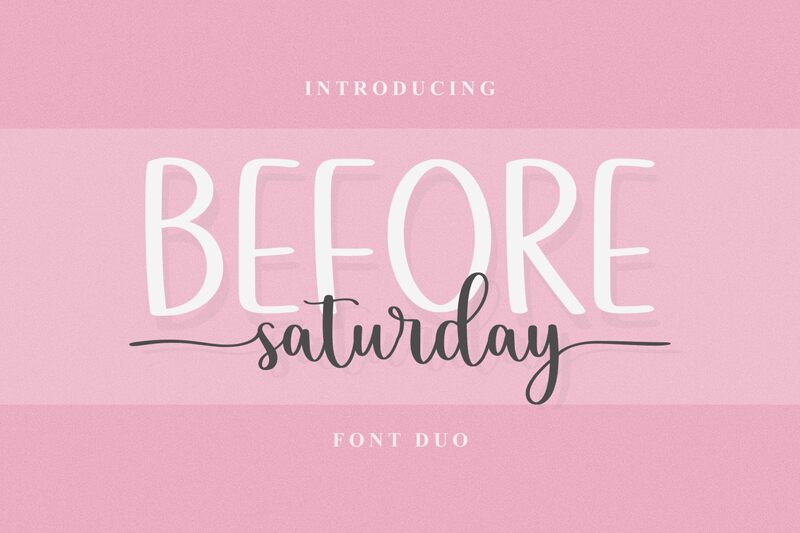
Before Saturday DEMO
Before Saturday, crafted by designer Makashi, exudes a unique handwritten charm that captures the essence of personal touch in every curve and stroke. This semi-light font dances between casual and elegance, making it a versatile choice for various design projects. Its aesthetic appeal lies in its fluidity, reminiscent of a quick note jotted down with flair or an intimate letter penned with care.
The style of Before Saturday is perfect for invitations, branding, and advertising where a touch of sophistication is desired without sacrificing warmth and approachability. The handwritten quality injects personality into digital designs, offering a bridge between traditional penmanship and modern typography.
Makashi's creation promises to add an authentic human element to your creative endeavors, ensuring that your message is not just seen but felt. Whether you're aiming for playful whimsy or understated chic, Before Saturday has the potential to elevate your project with its stylish yet friendly demeanor.